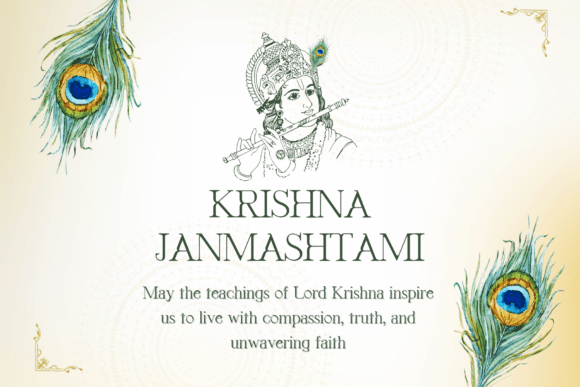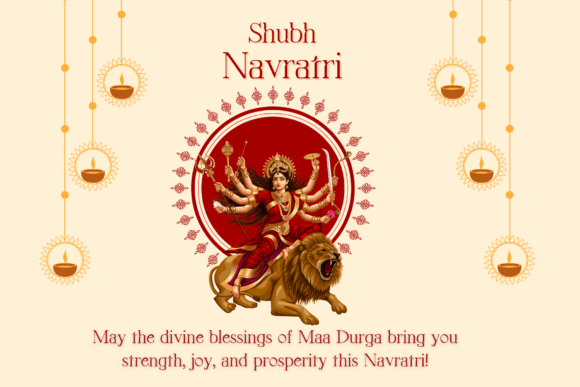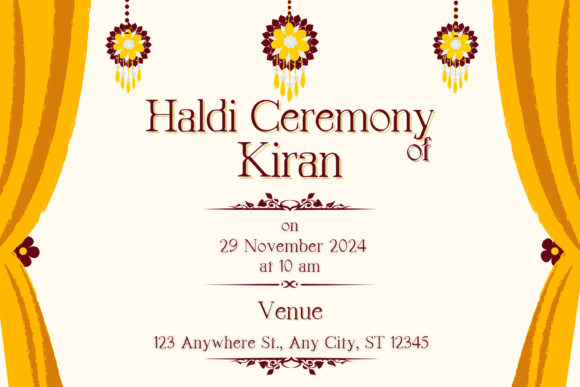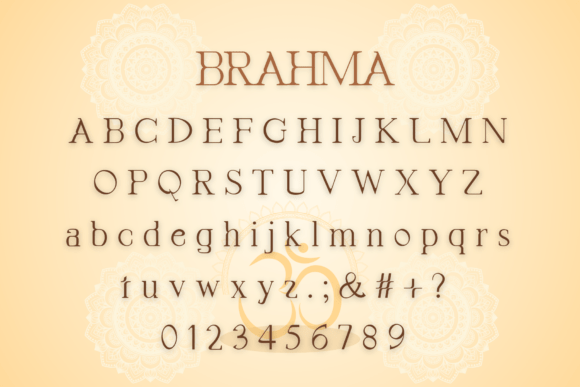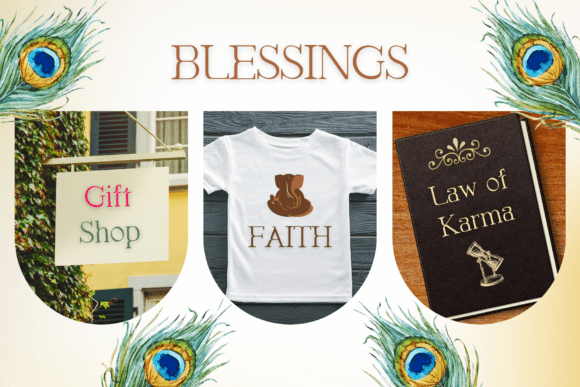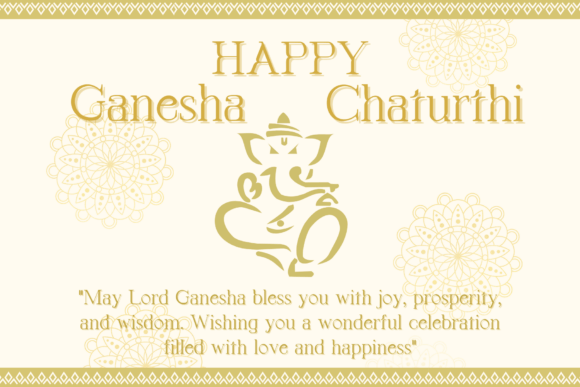
Brahma Font: A Magical and Elegant Typeface for Summer
As the summer season approaches, designers and crafters are on the lookout for fresh and inspiring typography to elevate their creative projects. Introducing Brahma Font, a beautiful and elegant typeface that embodies the warmth and magic of the season. Inspired by divine blessings, Brahma Font is the perfect addition to your design toolkit, offering a simple yet sophisticated aesthetic that’s ideal for a variety of applications.
The Inspiration Behind Brahma Font
Brahma Font draws its inspiration from the divine blessings that are both warm and magical, evoking feelings of serenity and wonder. The font’s creator aimed to capture the essence of a perfect summer’s day, where everything feels beautiful and full of life. As a result, Brahma Font exudes a sense of elegance and refinement, making it suitable for projects that require a touch of sophistication.
Brahma Font boasts a simple yet elegant design, characterized by clean lines, subtle curves, and a balanced structure. The font’s classic feel is both timeless and versatile, allowing it to seamlessly integrate into various design contexts, from branding and advertising to packaging and digital media.
Key Features of Brahma Font
- Simple yet Elegant: Brahma Font’s minimalist approach ensures that your designs remain uncluttered and easy to read, while its elegant flair adds a touch of sophistication.
- Magical and Whimsical: The font’s subtle curves and rounded edges evoke a sense of wonder and enchantment, perfect for projects that require a dash of personality.
- Versatile: Brahma Font can be applied to a wide range of creative works, including logos, headings, titles, and more.
Perfect for Summer Projects
As the seasons change and summer arrives, Brahma Font becomes an excellent choice for designers and crafters looking to infuse their projects with a sense of warmth and vitality. Whether you’re working on a branding campaign, creating summer-themed packaging, or designing eye-catching advertisements, Brahma Font is sure to bring a touch of magic to your work.
Ideal Applications for Brahma Font
- Branding and Logos: Brahma Font’s elegant and sophisticated design makes it an excellent choice for logos and branding materials.
- Summer-themed Packaging: Add a touch of whimsy and charm to your summer-themed packaging with Brahma Font.
- Digital Media: Use Brahma Font to create engaging and eye-catching social media graphics, blog posts, and website headers.
Tips for Using Brahma Font
- Experiment with Font Sizes: Brahma Font looks great in various sizes, from large headings to smaller body text.
- Pair with Complementary Fonts: Combine Brahma Font with other fonts to create visually appealing contrast and hierarchy.
- Play with Colors: Brahma Font’s simple design makes it an excellent choice for experimenting with different colors and gradients.
Brahma Font is a beautiful and elegant typeface that captures the essence of summer’s warmth and magic. With its simple yet sophisticated design, this font is perfect for designers and crafters looking to elevate their creative projects. Whether you’re working on branding, packaging, or digital media, Brahma Font is sure to bring a touch of wonder and enchantment to your work. So why not give it a try and experience the magic of Brahma Font for yourself?